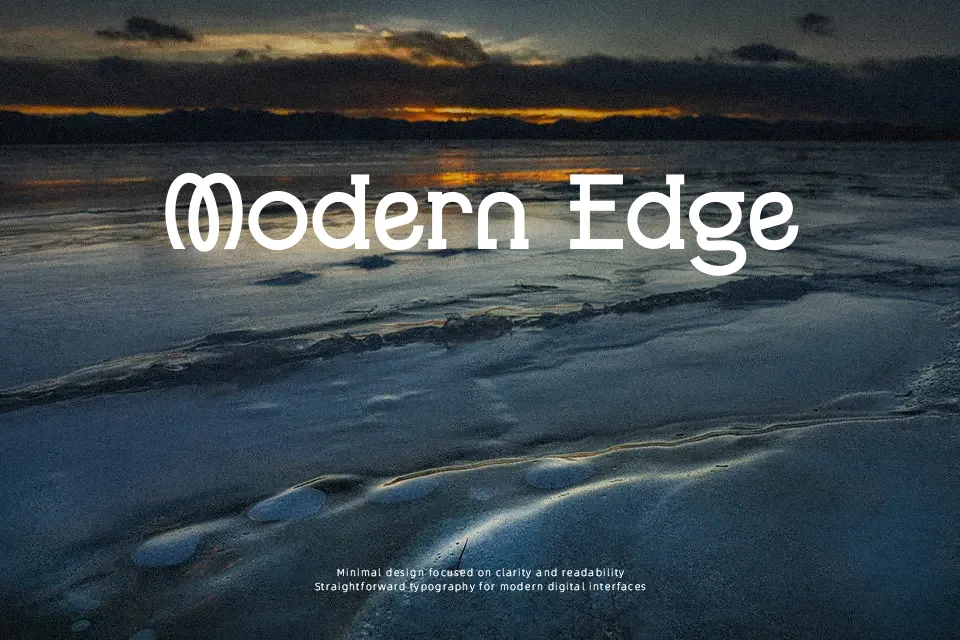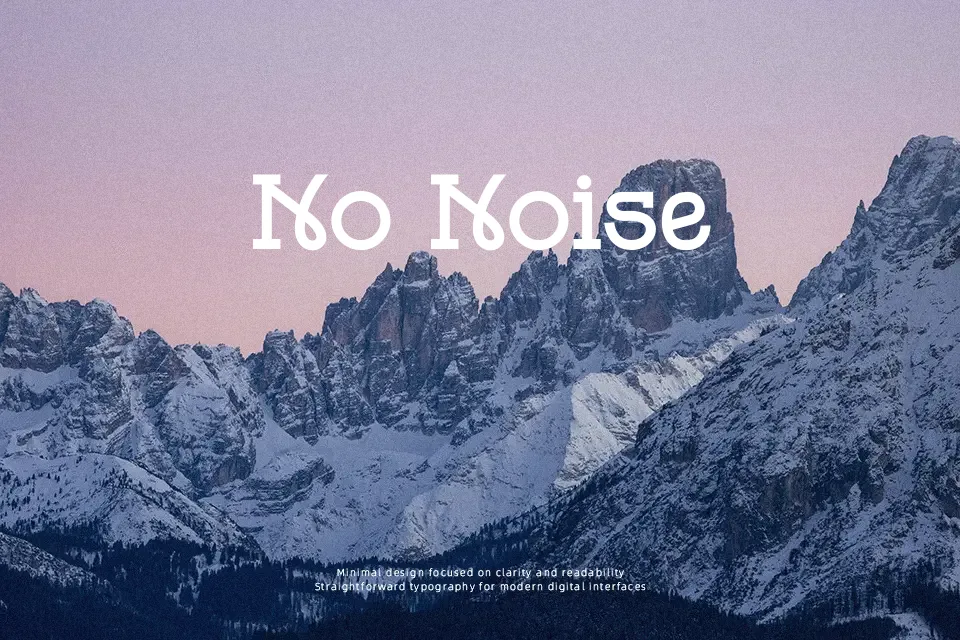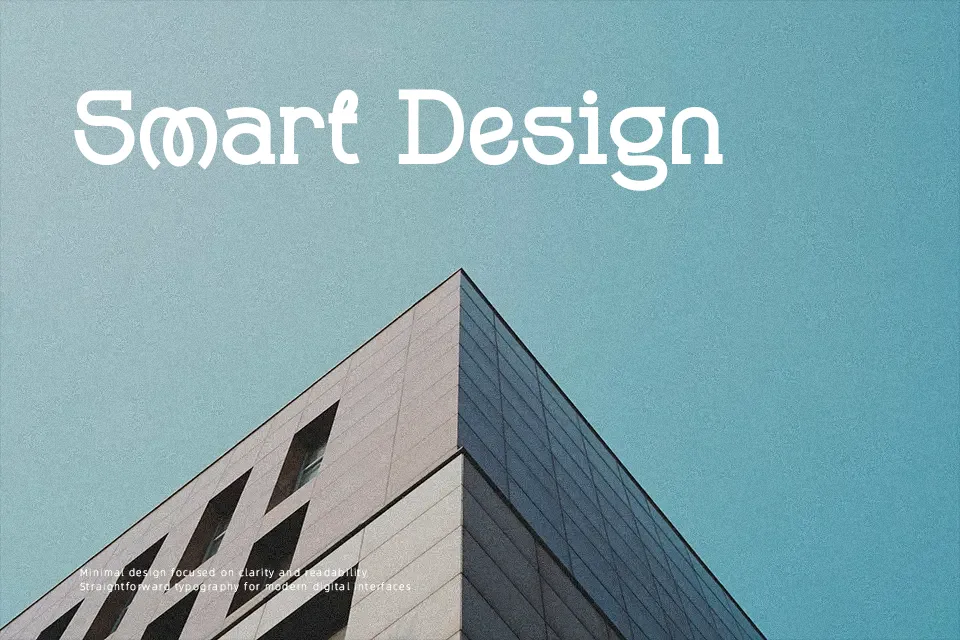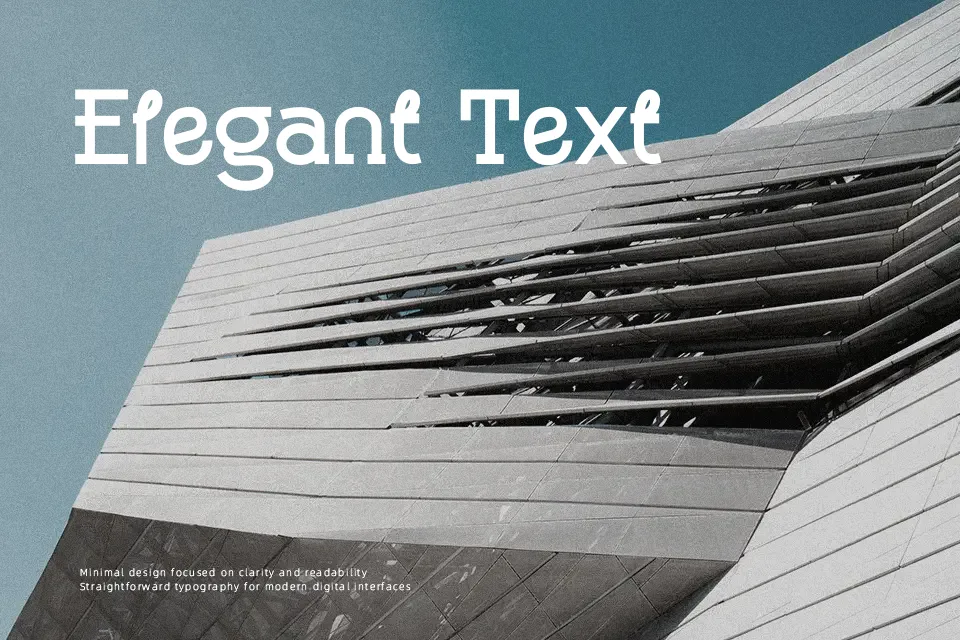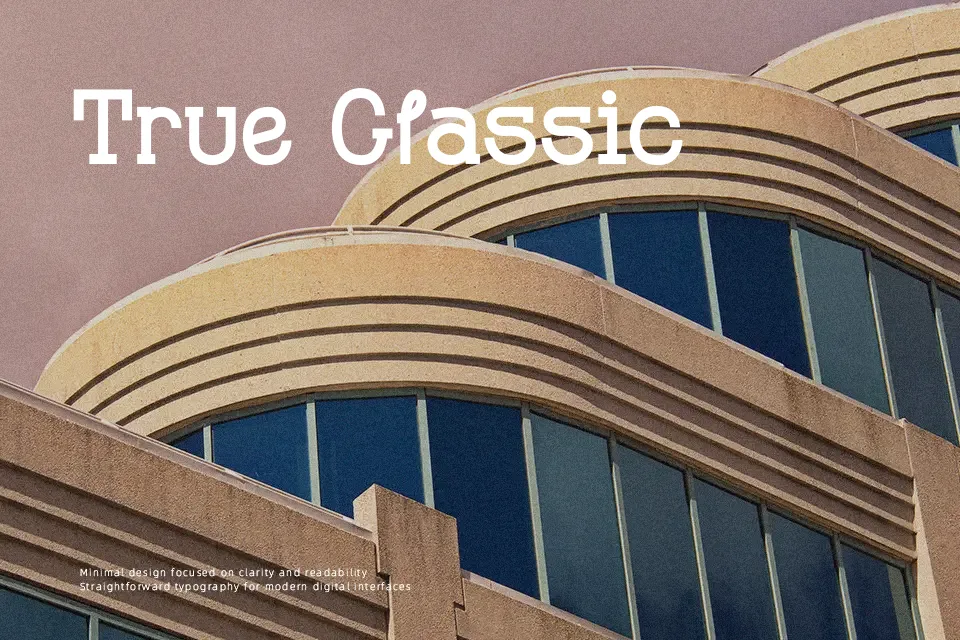
Nokwy Font
Nokwy Font uses chunky, highly stylized letterforms with uneven contours, broad proportions, and a strong display-oriented presence. Its strokes appear heavy and rounded in places, while the compact visual rhythm keeps words looking dense and energetic. The design is most effective in short phrases, large headings, and logo-sized text, where individual character shapes can remain distinct. It is less comfortable for long copy or small captions because the decorative construction reduces quick word recognition. In practical use, the weight gives headlines clear impact, but generous sizing is important for preserving legibility.
Best For: poster headlines,playful product packaging,short logo text,social media graphics
Perfect for headline, logo, and packaging, with a bold and decorative style.